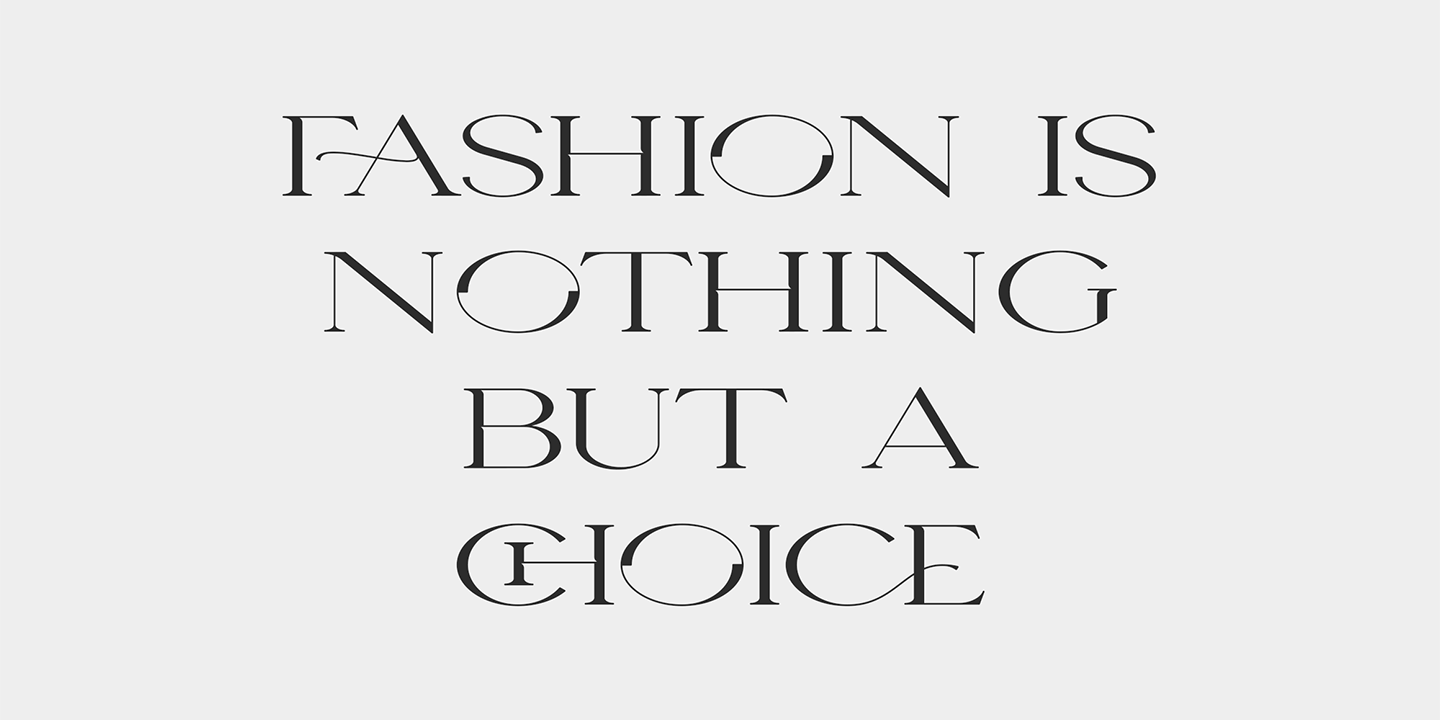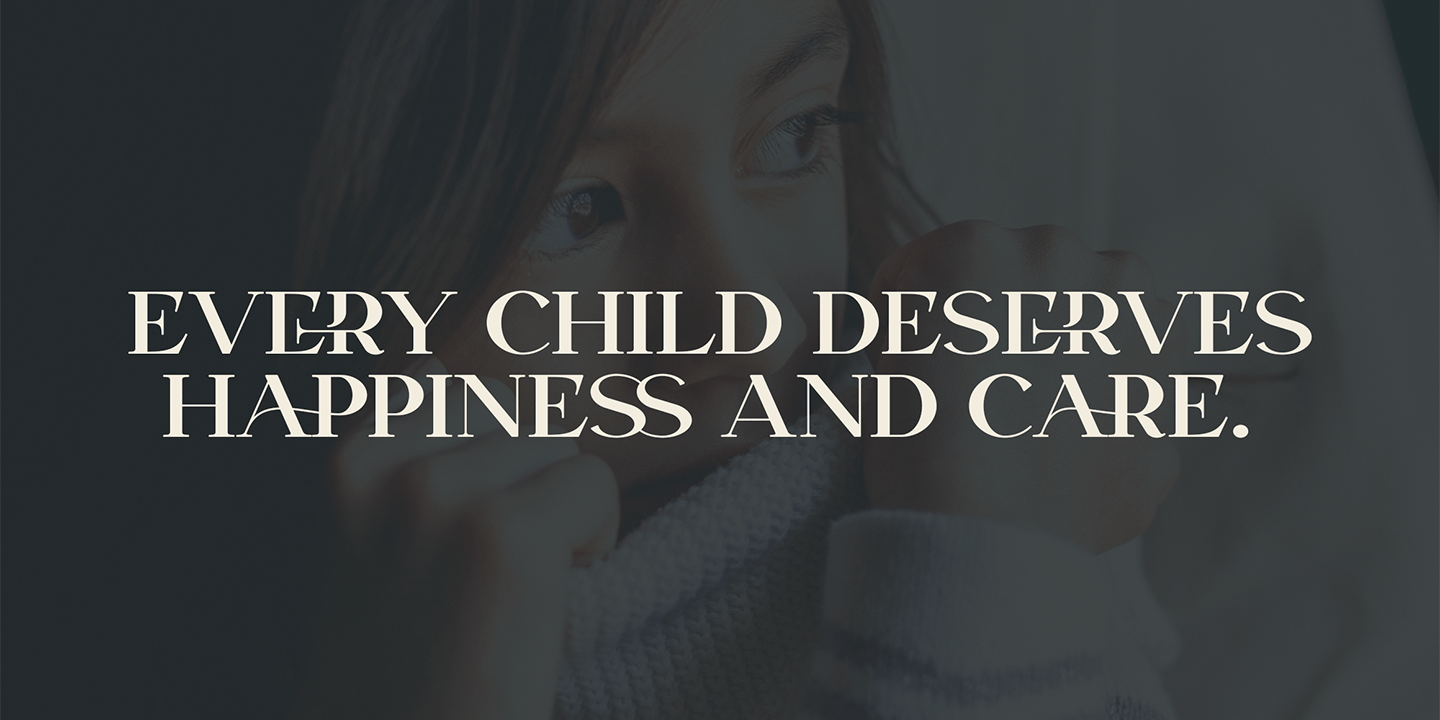
About VSOP Narrow
Introducing VSOP – a luxury typeface unlike any other. Enjoy the elegance of 87 languages and 70 font styles, from narrowest to widest, with alternate glyphs for customizing your typography unique look! From retro branding to wedding invites or logos…